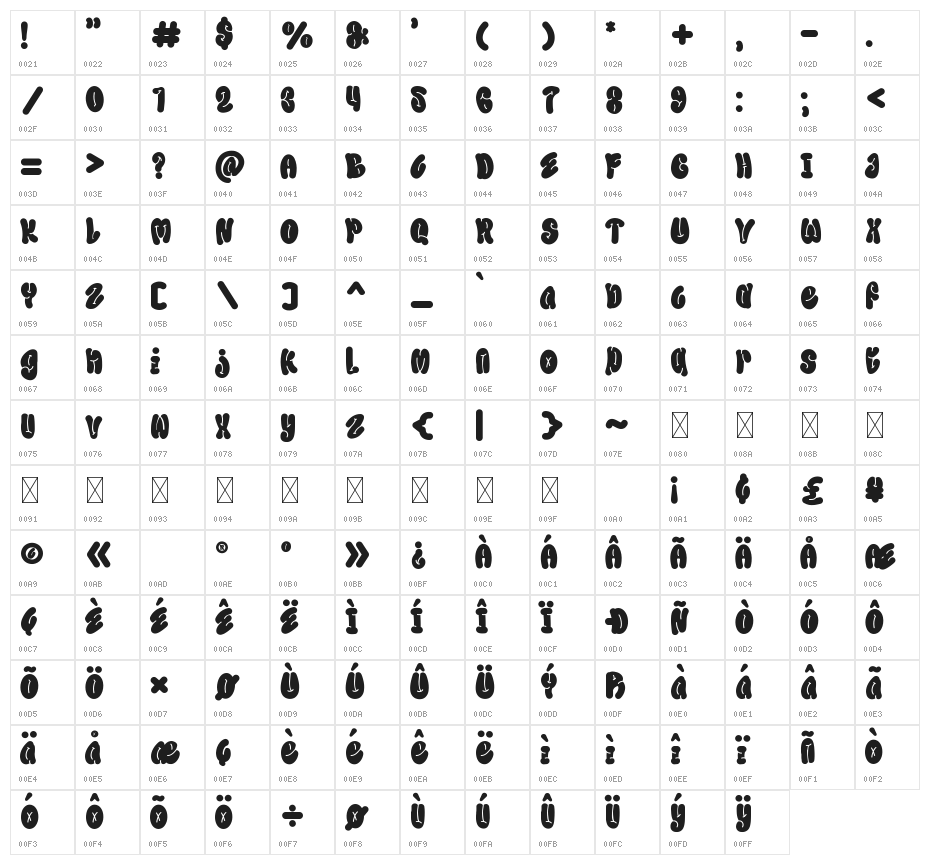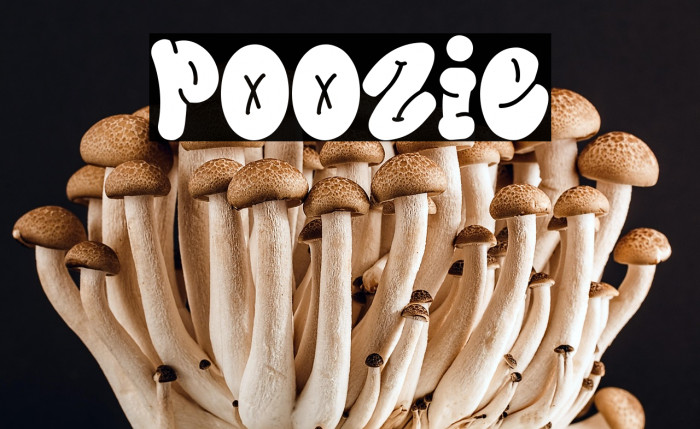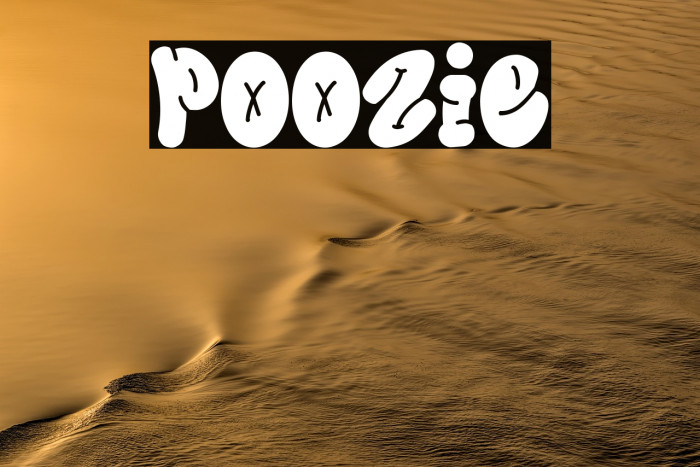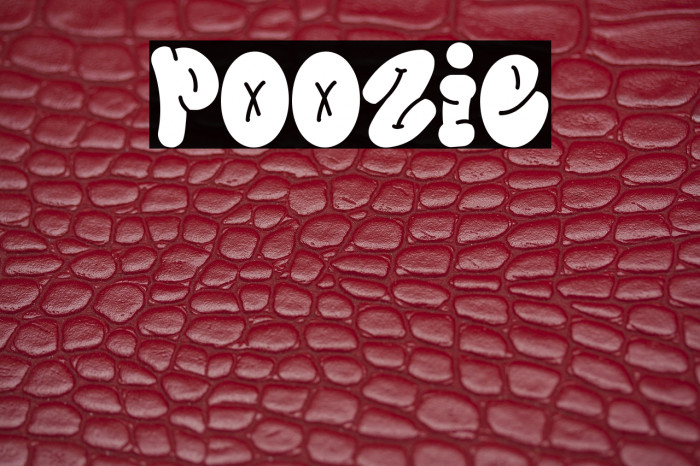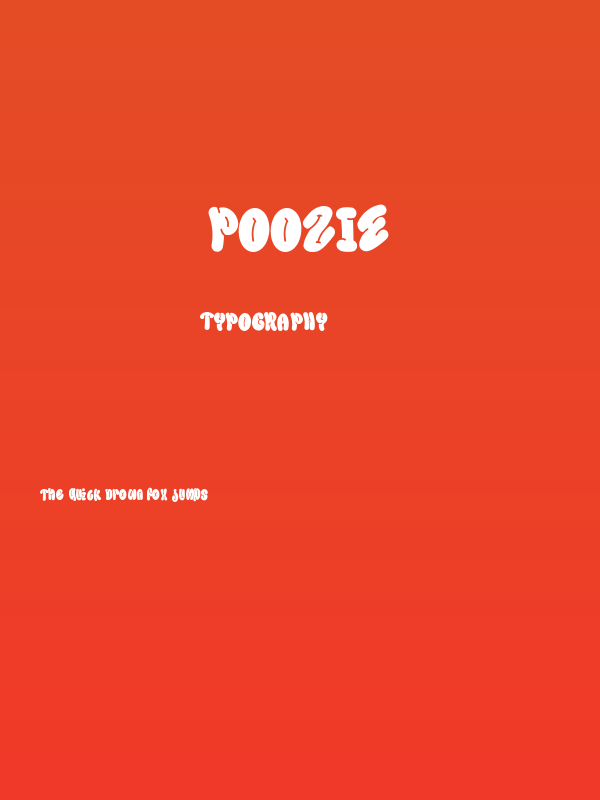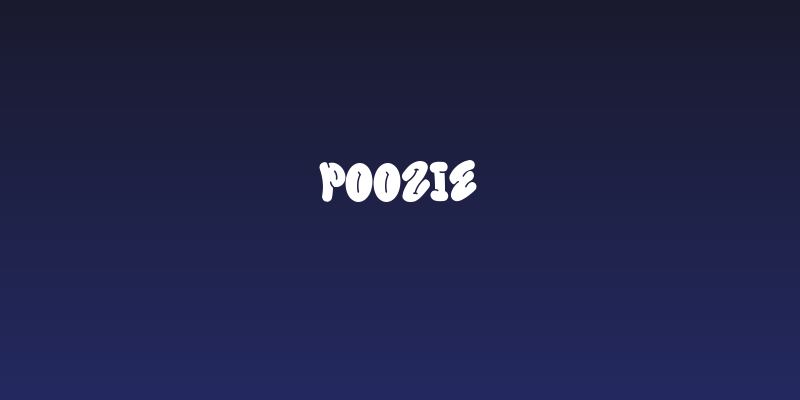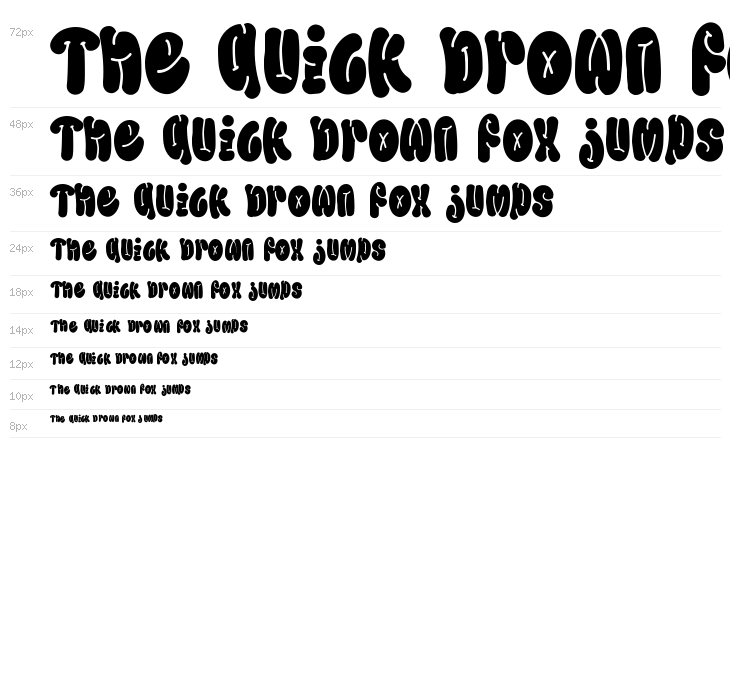
Poozie Font
Poozie Description
This font features a bold and playful design with a bubble-like appearance. The characters are rounded and thick, giving a sense of fun and whimsy. The strokes are consistent in width, creating a uniform look across all letters and numbers. The font includes both uppercase and lowercase letters, numerals, and a variety of special characters, making it versatile for different uses. Its unique style is eye-catching and suitable for creative projects that require a bold statement.
| Overall Style | Playful, Fun, Bold |
| Proposed Projects | Ideal for children's book covers, playful branding, party invitations, and eye-catching posters. |